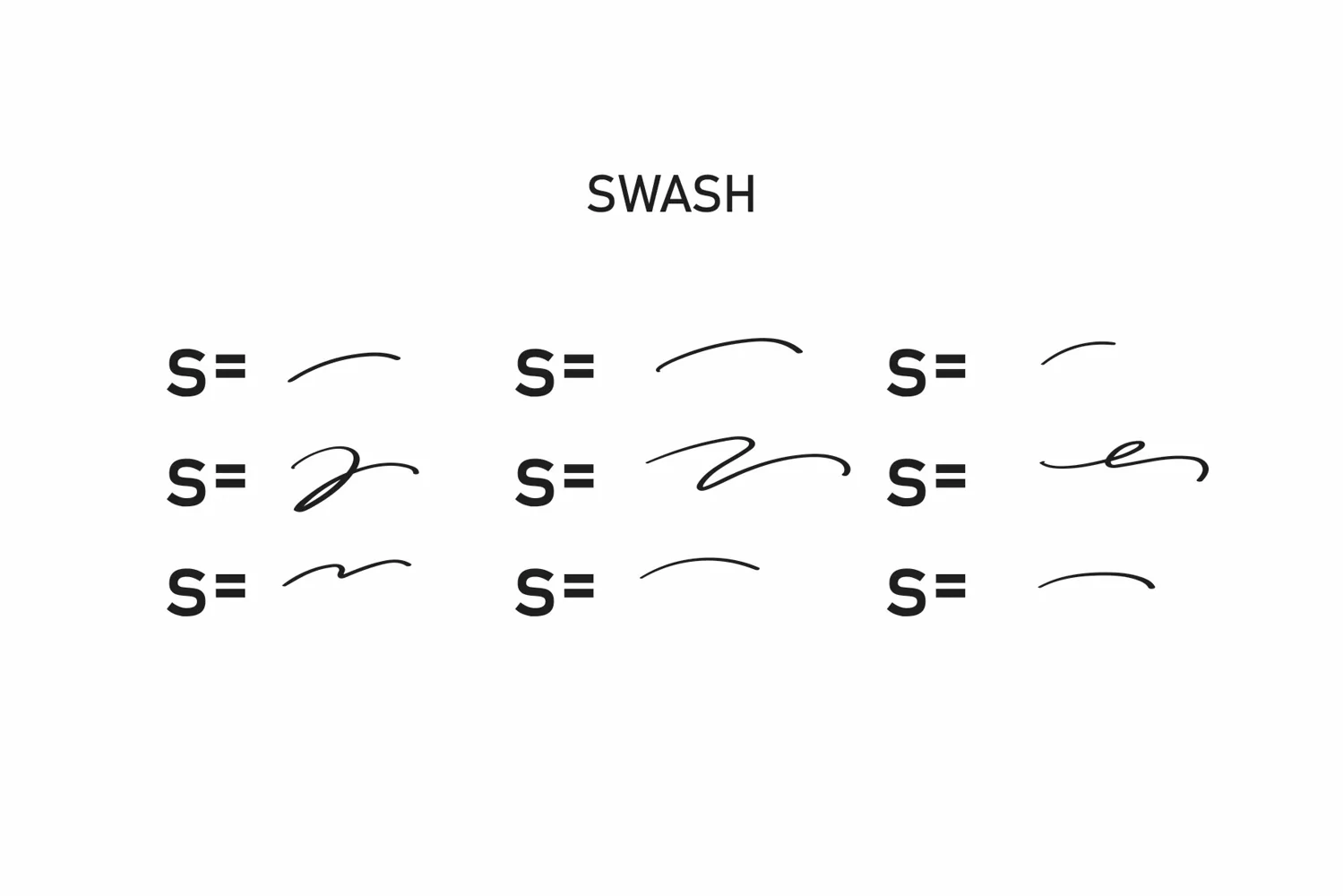
Melonade | Script font
Melonade Font is a popular and professional script font. It is Modern and elegant, this typeface is made of beautiful, creative strokes.